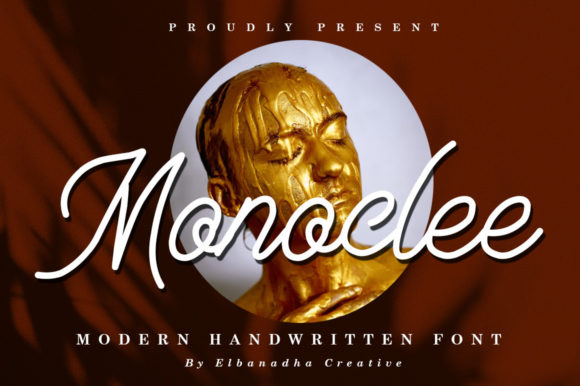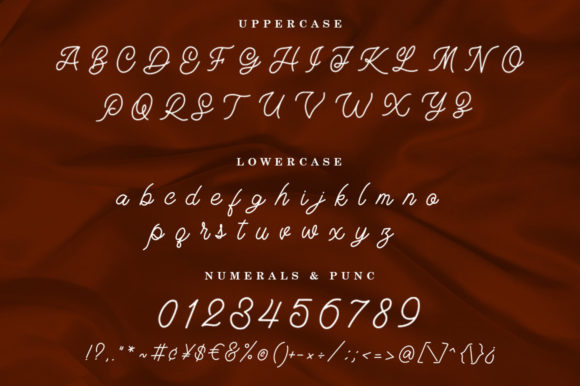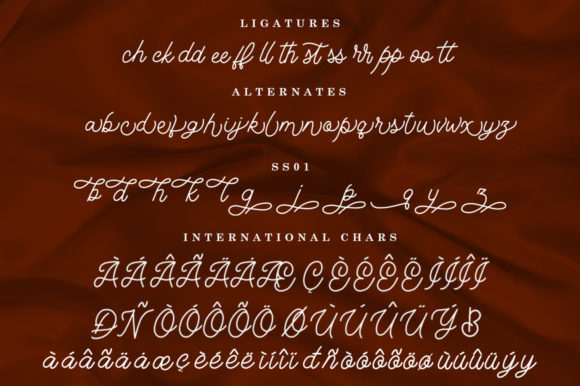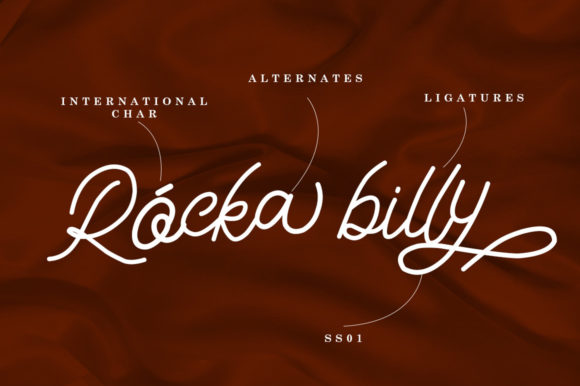
About Monoclee Font
Monoclee is a simple, vintage styled and well-balanced handwritten font. You can successfully add this elegant font on wedding invitations, business cards, greetings cards, social media posts, wall art, and more. This font is PUA encoded which means you can access all of the glyphs and swashes with ease!